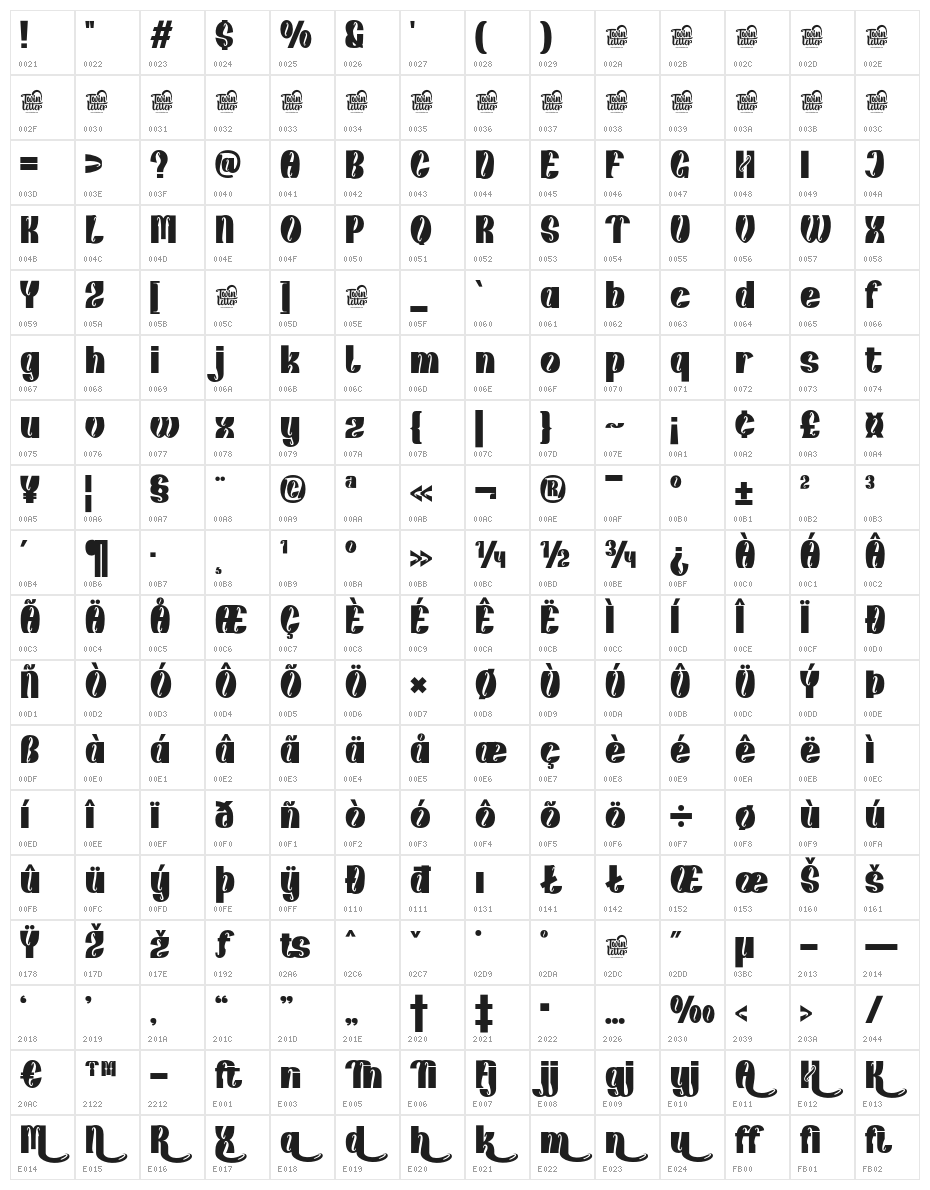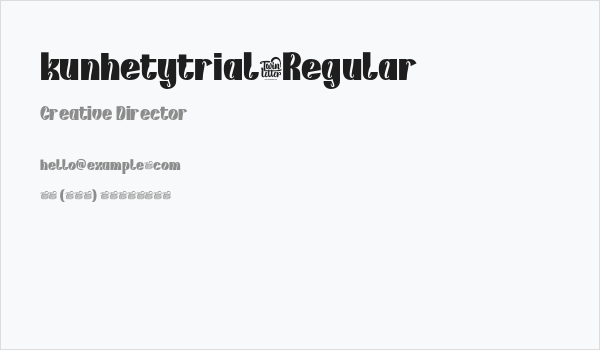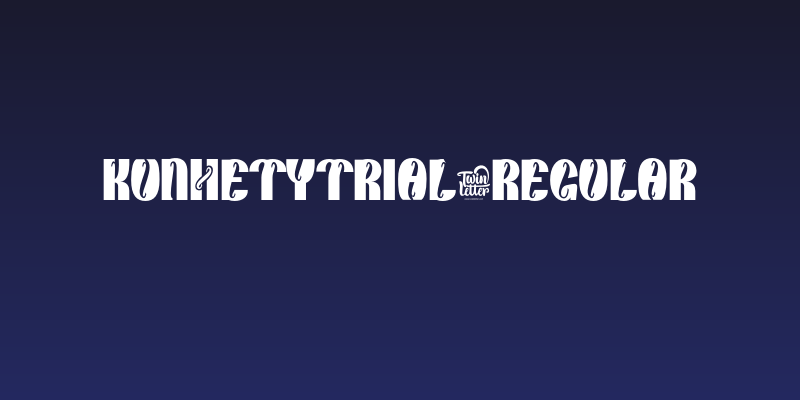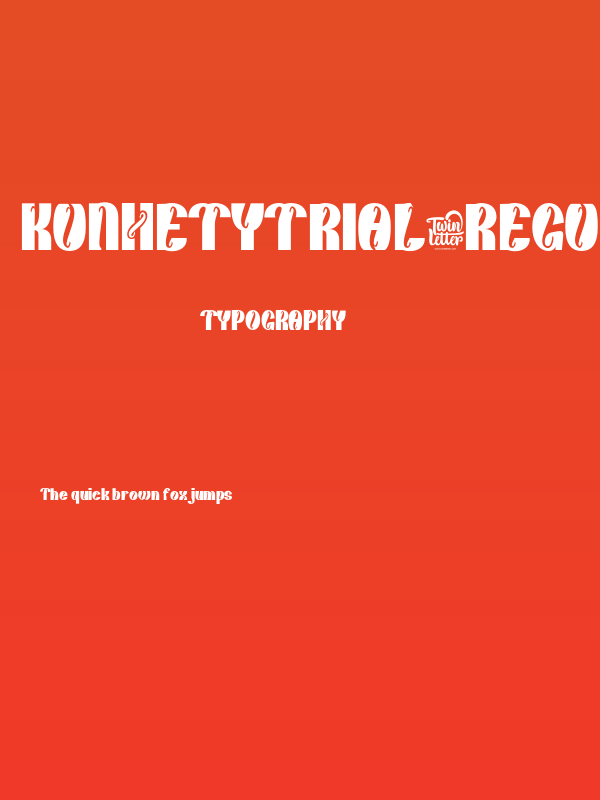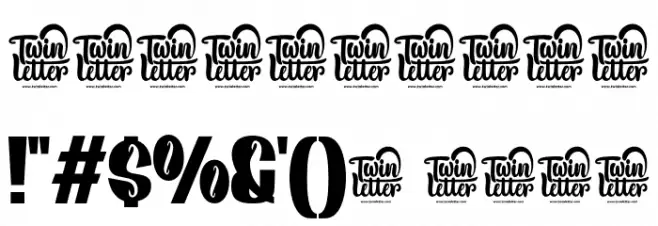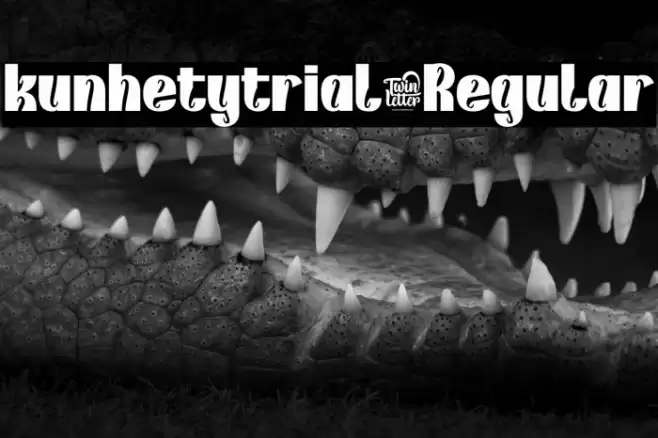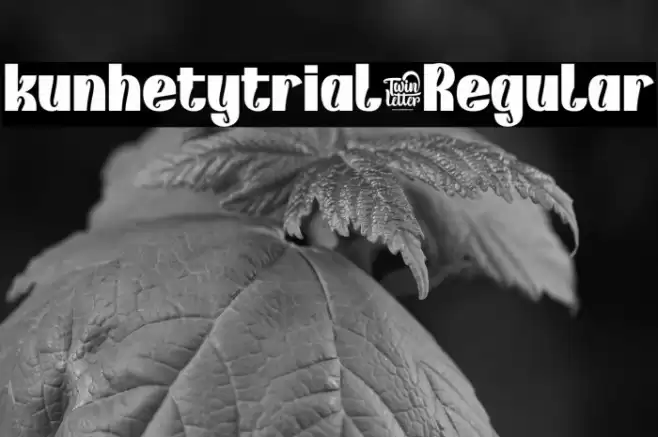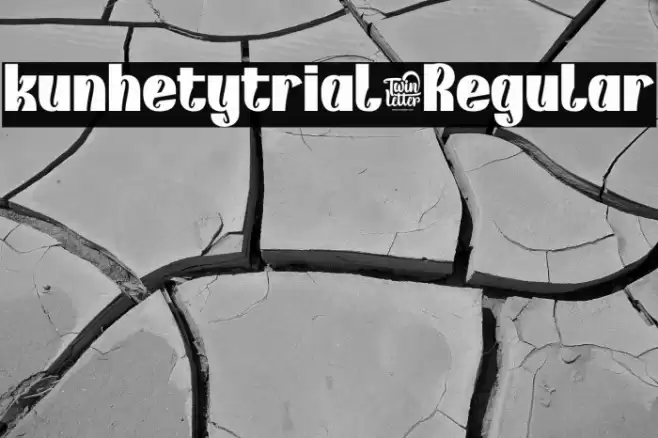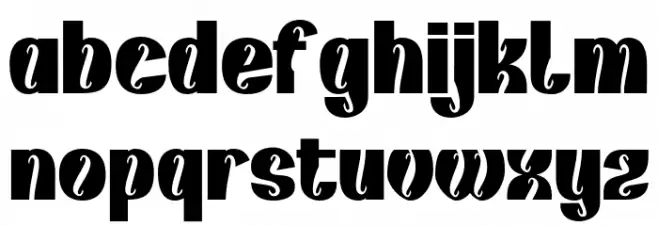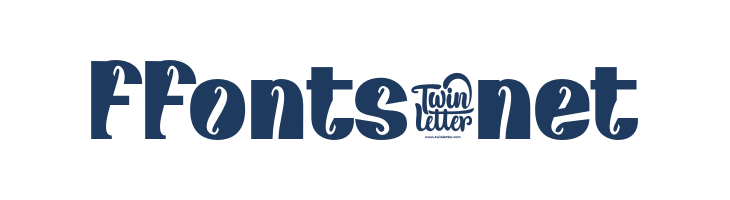
kunhetytrial-Regular Font
kunhetytrial-Regular Description
This font features a bold and decorative style with a unique blend of thick and thin strokes, creating a high contrast that draws attention. The characters have a playful and artistic flair, with some letters incorporating unexpected curves and swirls that add to its distinctiveness. The uppercase and lowercase letters maintain a consistent style, while the numbers and special characters complement the overall design. This font is ideal for making a statement in creative projects.
| Proposed Projects | Ideal for branding, posters, album covers, and any project requiring a bold, artistic touch. |